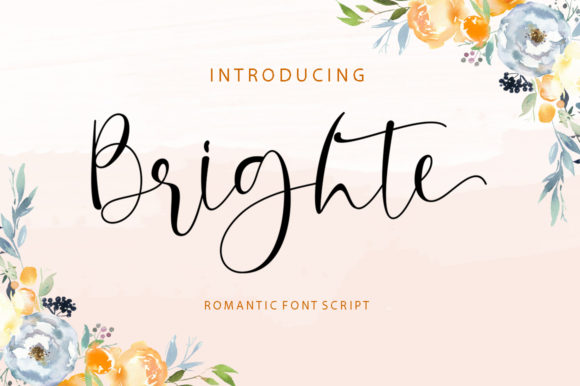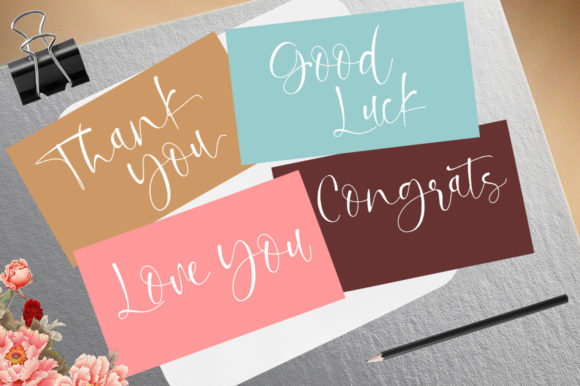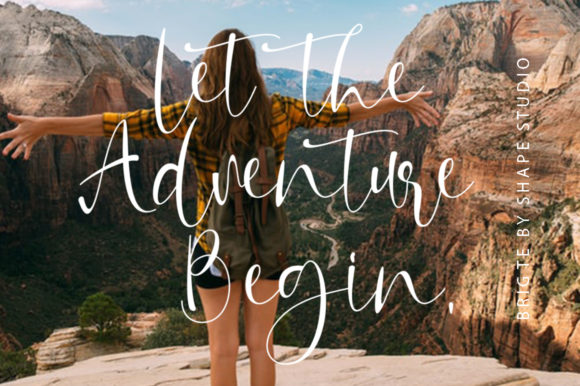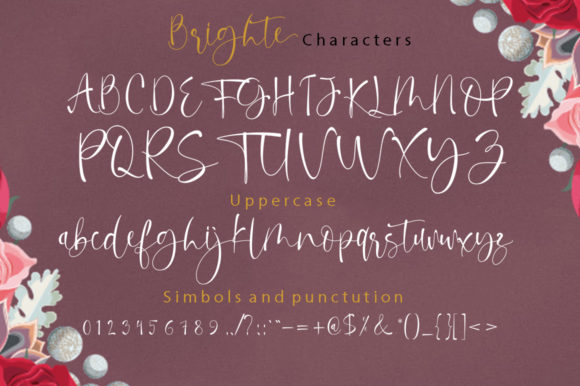
HomeScript FontsBrighte Font Script Fonts Brighte Font FacebookXPinterestWhatsApp Brighte Font Poster 2 Brighte Font Poster 3 Brighte Font Poster 4 Brighte Font Poster 5 Brighte Font Poster 6 Brighte Font Poster 7 Brighte Font Poster 8 Brighte Font Poster 9 Brighte Font Poster 10 About Brighte Font Brighte is a modern and unique script with a beautiful feel. It will add an authentic touch to any design project! DOWNLOAD NOW People also explored Cute Montage Font Galeon Script Font Flowers Font Boho Style Font Greyfox Font Piemonte Font Gobble Font Climber Font Moonlight Font 328 0 TagsBrighte Font Previous articlePollard Script FontNext articleHellena Font LEAVE A REPLY Cancel reply Comment: Please enter your comment! Name:* Please enter your name here Email:* You have entered an incorrect email address! Please enter your email address here Website: Save my name, email, and website in this browser for the next time I comment. Personal Use Free Feather Script Personal Use Free Read more about this font Blast Personal Use Free Read more about this font The Kingdom Personal Use Free Read more about this font Mandarins Personal Use Free Read more about this font BLOG Best Fonts for T-Shirt Design – Top 2025 Picks In 2025, t-shirt design has become more than just fashion—it's a form of self-expression. Whether you're... To increase your work productivity, choose the most readable fonts. 5 Fonts That Will Dominate Design Trends in 2026 Free vs Paid Fonts: Why Investing in Premium Fonts Is Worth It